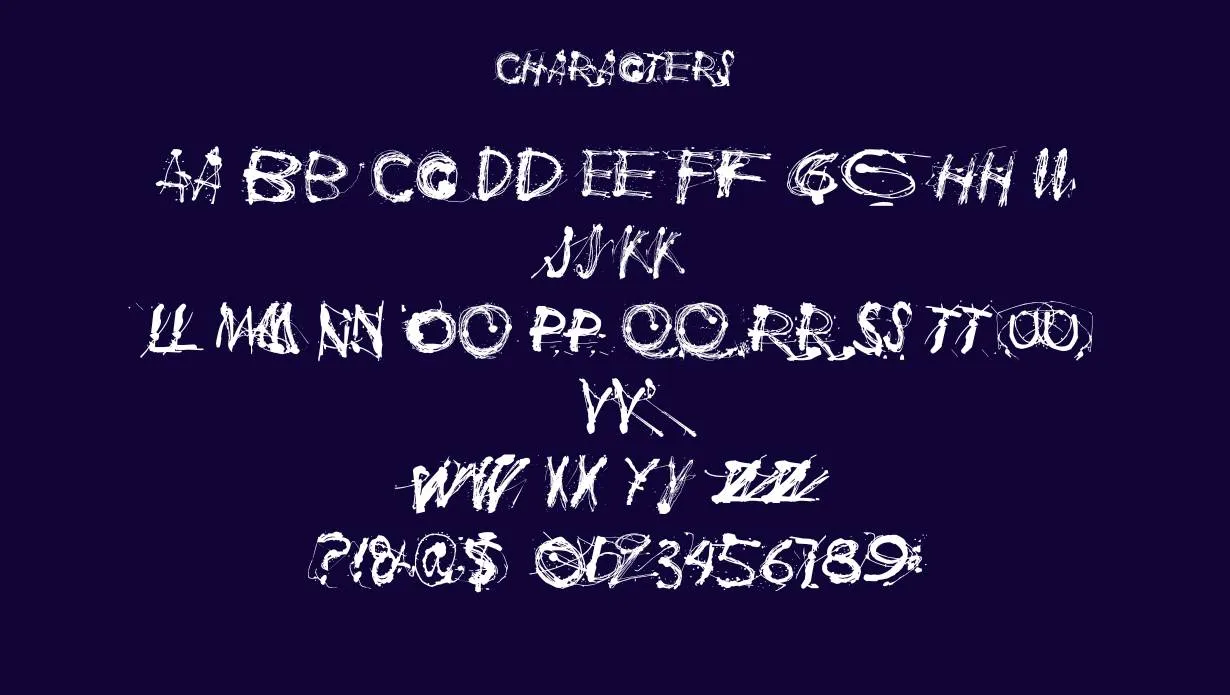
Polla Font Free Download
Polla Font brings a playful and cheerful vibe to design projects, making it a perfect choice for children’s books, posters, and creative advertising. Its friendly letterforms add a touch of whimsy to any project, ensuring engagement and enjoyment.
| Name | Polla Font |
| Designer | junkohanhero |
| Style | Brush |
- Polla Regular